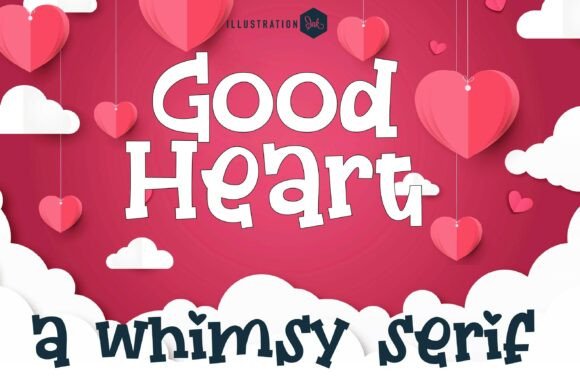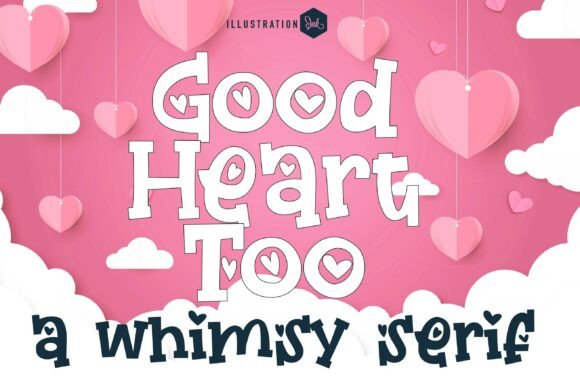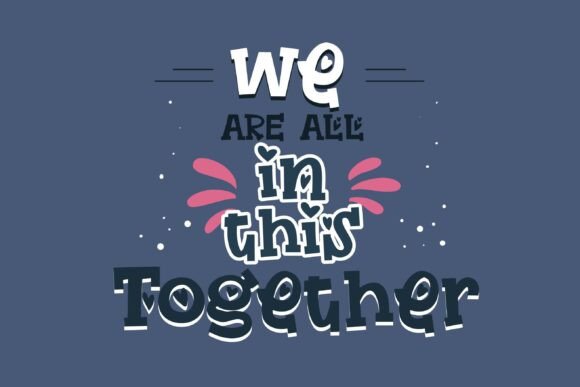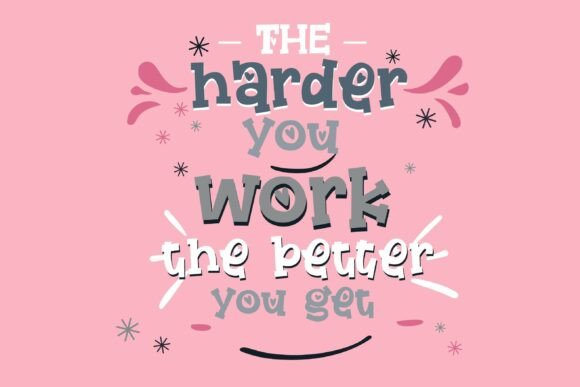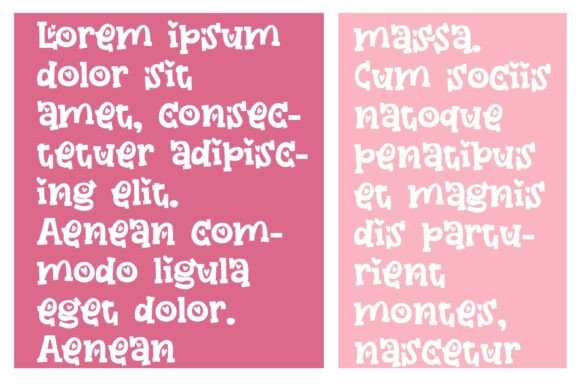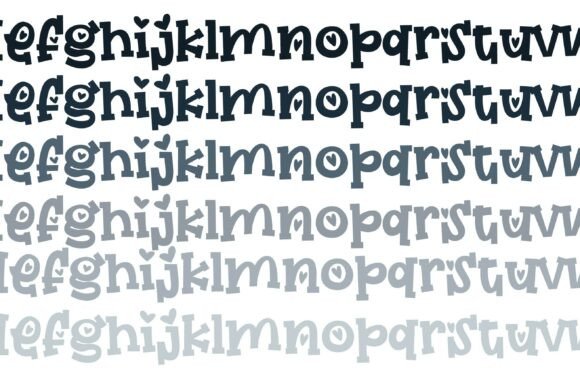
Spread Positivity with the Good Heart Font
I’ll never forget the design project that led me to discover the Good Heart font. I was working on a charity campaign for a local community center, and I needed a font that would convey warmth, friendliness, and approachability. The client wanted a design that would appeal to audiences of all ages, and I was struggling to find the perfect fit. That’s when I stumbled upon the Good Heart font, and it instantly stole my heart ❤️.
This bold and friendly display serif font puts a literal heart into every character, making it an instant standout for any project that needs a touch of compassion and kindness. In this article, I’ll share my honest review of the Good Heart font, provide a practical guide on how to use it, and explore similar fonts that you might love.
The Good
• ✨ Unique and playful heart-shaped cutouts within the letterforms
• ✅ High readability due to its sturdy structure
• ✅ Whimsical details that provide a warm, “feel-good” vibe
• ✅ Perfect for charity branding, community events, and uplifting merchandise
The Not-So-Good
• ⚠️ May not be suitable for formal or corporate designs
• 🤔 Limited versatility due to its bold and decorative nature
The Story Behind the Good Heart Font
The Good Heart font was designed with one goal in mind: to spread positivity and kindness through typography. The designer, a passionate advocate for social causes, wanted to create a font that would inspire people to be more compassionate and empathetic. And so, the Good Heart font was born – a bold and friendly display serif that puts a literal heart into every character.
Q: What makes the Good Heart font unique?
A: The Good Heart font features heart-shaped cutouts within the letterforms, making it a one-of-a-kind design.
Q: Is the Good Heart font suitable for formal designs?
A: While the Good Heart font is bold and eye-catching, it may not be the best fit for formal or corporate designs. It’s better suited for creative, playful projects.
Every design feels more compassionate when it’s built with the Good Heart font. Whether you’re working on a charity campaign, a community event, or just a fun project, this font is sure to bring a smile to people’s faces. So go ahead, spread some positivity, and put a little heart into your design ❤️.